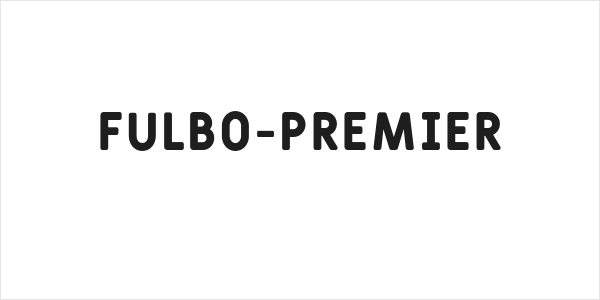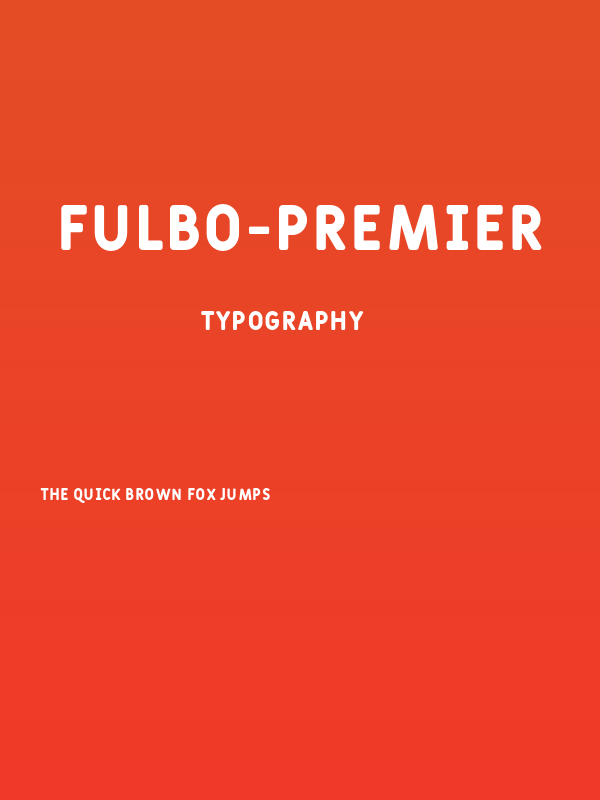
Fulbo-Premier Font
Fulbo-Premier Description
This font features bold, rounded characters with a strong presence, making it ideal for attention-grabbing designs. The uppercase letters are uniform in height, providing a clean and organized appearance. The numbers are distinct with a slightly playful touch due to their rounded edges. Special characters are clearly defined, maintaining the overall bold aesthetic. The font's style is consistent across all characters, ensuring readability and visual appeal. Its boldness and rounded forms make it suitable for various creative applications.
Fulbo Font
| Proposed Projects | Ideal for headlines, posters, branding, and advertising materials where a strong visual impact is needed. |